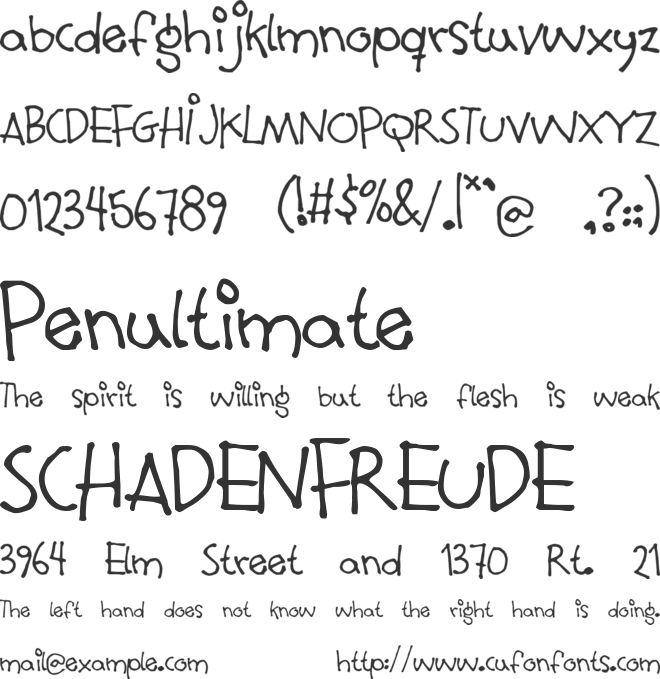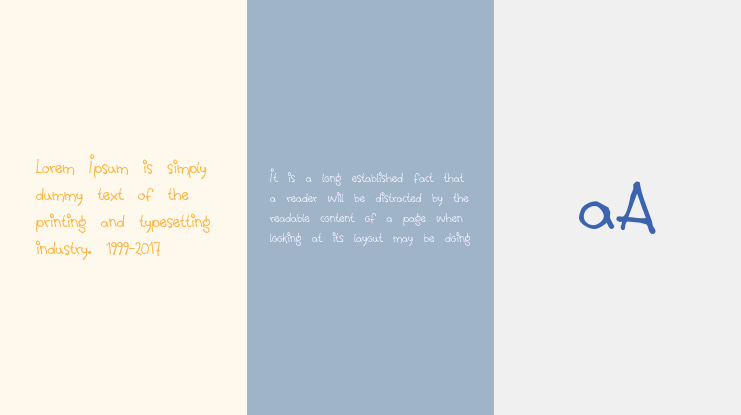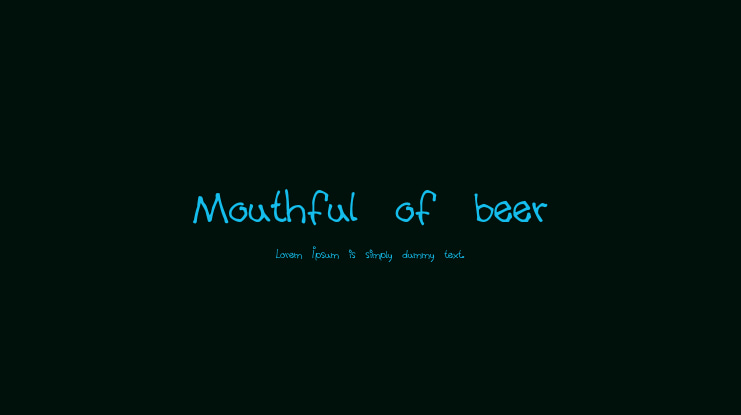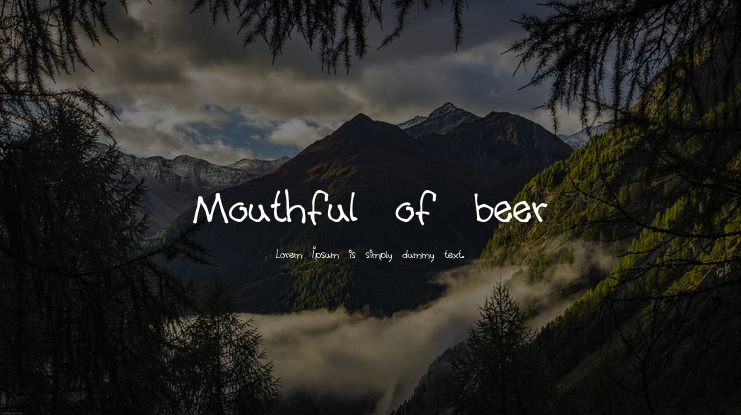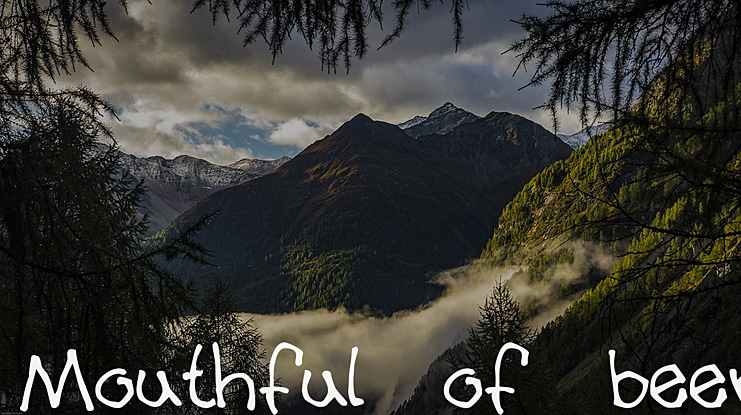
Mouthful of beer Font
A very old font. Looks like it was made while drinking beer!Please note!This is an "updated" version of this font.What's updated? Well, the font is embeddable and has got an updated text file attached ("pizzadudedotdk.txt") which states that the font is not for distribution. If you have downloaded this font earlier, then please replace with this version.Have fun and enjoy!Jakob Fischerwww.pizzadude.dk (http://www.pizzadude.dk)May '03